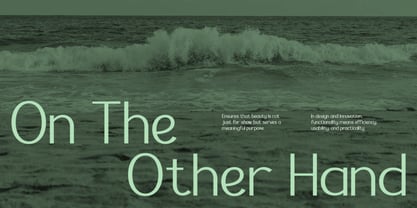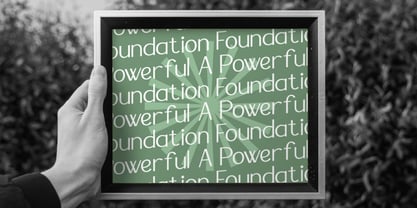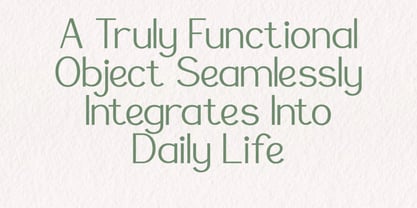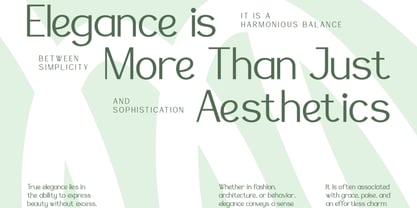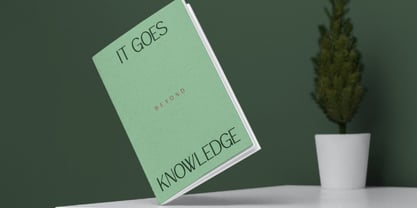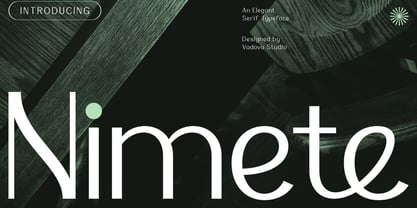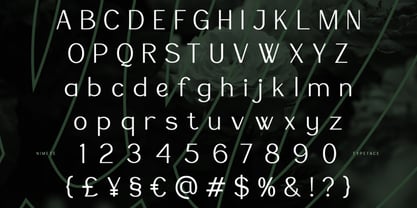
Nimete
La familia tipográfica Nimete y publicada por Vadova Std. Nimete contiene 1 estilos. Más información sobre esta familia
Nimete is an elegant modern sans-serif typeface designed with clean lines, balanced proportions, and a refined minimalist aesthetic. Its simple yet confident letterforms create a calm, contemporary look that feels professional and timeless. The clarity of each character makes it highly readable while maintaining a sophisticated visual presence. Nimete is crafted to support modern branding, editorial layouts, and refined digital design. Suitable For Brand identities, corporate branding, editorial design, magazines, websites, UI/UX interfaces, logos, presentations, lifestyle branding, modern packaging, clean layouts, and creative projects that require a refined, elegant, and minimalist sans-serif typeface.